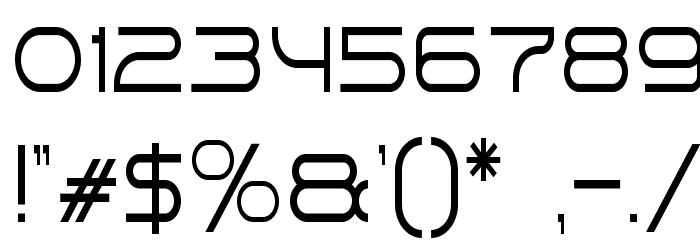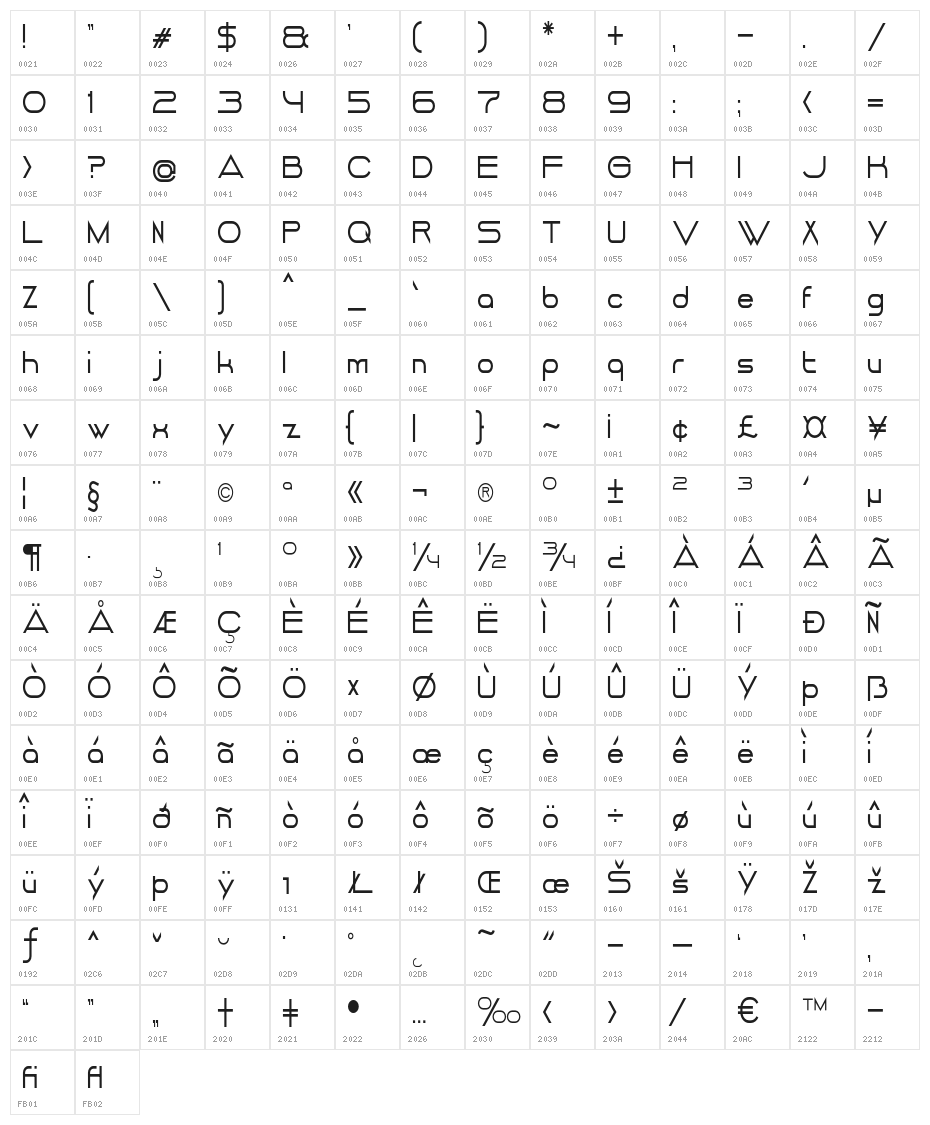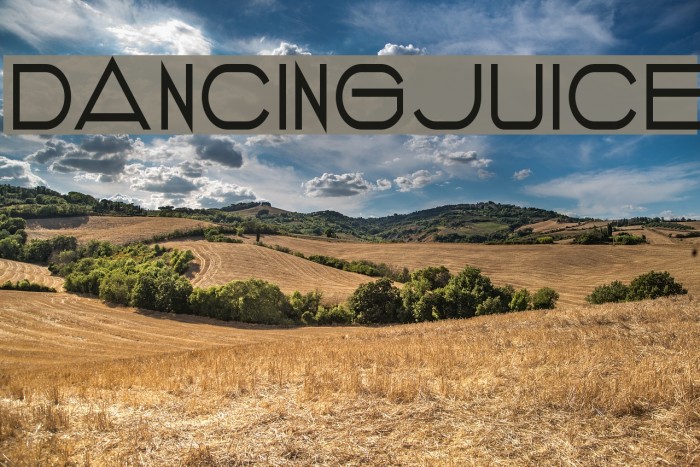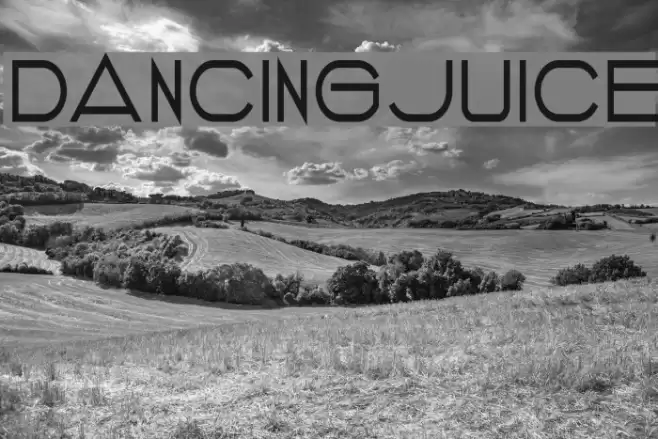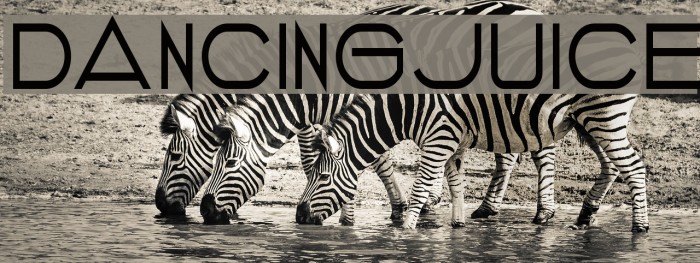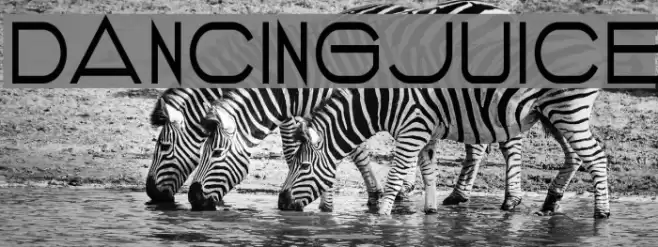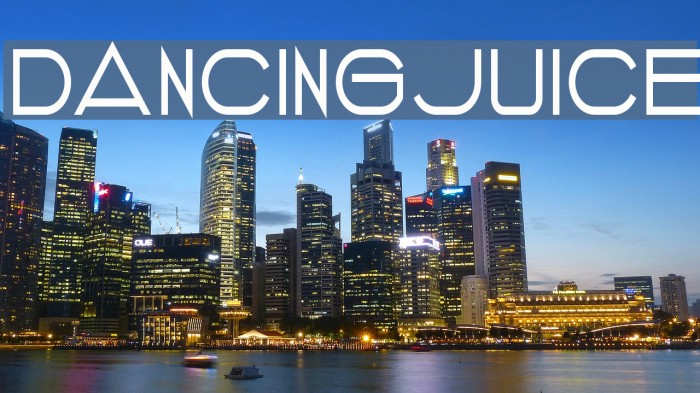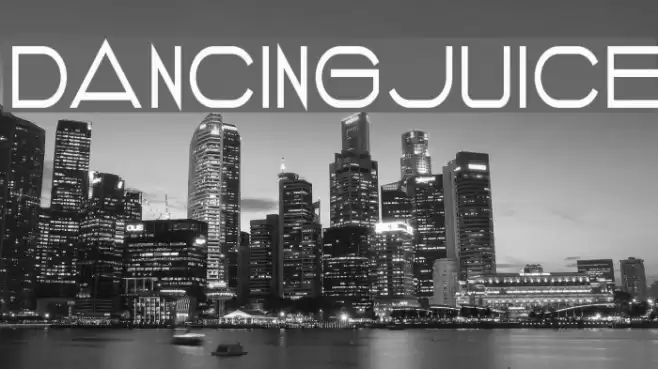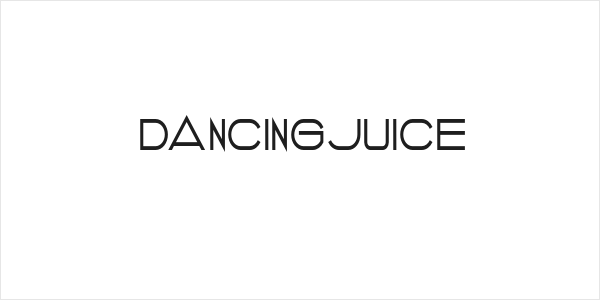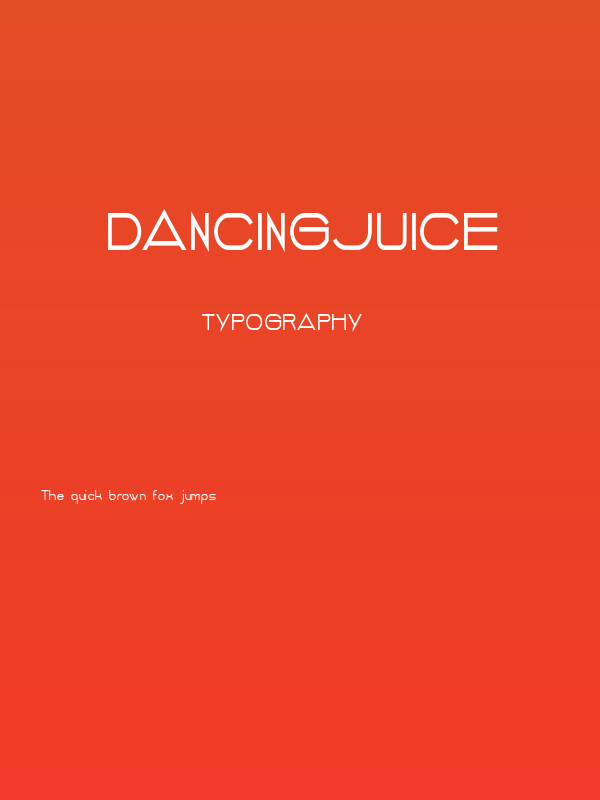
DANCINGJUICE Font
DANCINGJUICE Description
This font features a modern and sleek design with a geometric structure. The characters are uniform and balanced, providing a clean and futuristic appearance. The uppercase letters are bold and distinct, while the lowercase letters maintain a consistent style that complements the overall design. The numerals are clear and easy to read, matching the aesthetic of the alphabetic characters. Special characters are well-integrated, enhancing the font's versatility. The font's minimalistic approach makes it suitable for contemporary design projects.
| Proposed Projects | Ideal for technology branding, modern advertising, digital interfaces, and innovative product packaging. |